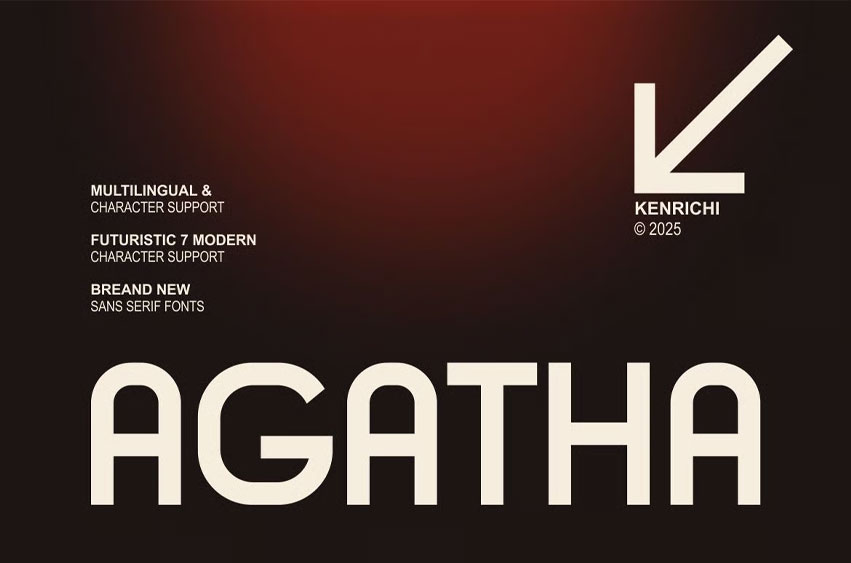
Agatha Font is a modern and authentic font. Perfect for both professional and branding needs of a product. This font is suitable for any branding project like quotes, logo, blog header, poster, banding, letter, invitation, stationery, etc.
Designed as a versatile and flexible that can be used on a range of projects and mediums. outstanding in a wide range of contexts.